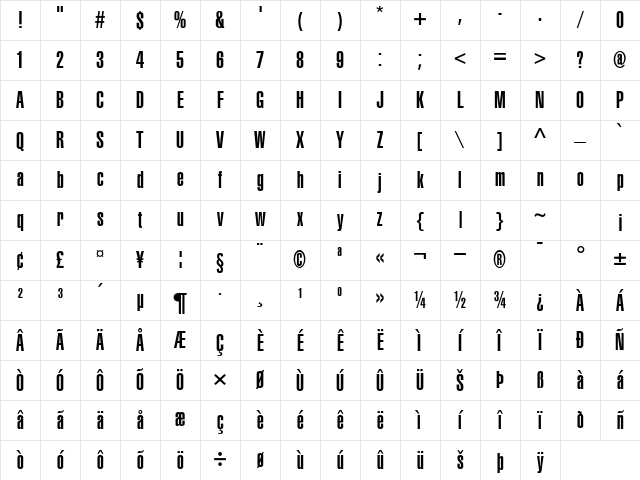
CorporateCompressedUltra Regular
Design Context for CorporateCompressedUltra
CorporateCompressedUltra is a composed and adaptable typeface that performs quietly and consistently across a wide range of design contexts.
Pro Tip: Use CorporateCompressedUltra in both headline and body roles to test its range before committing to a single application.